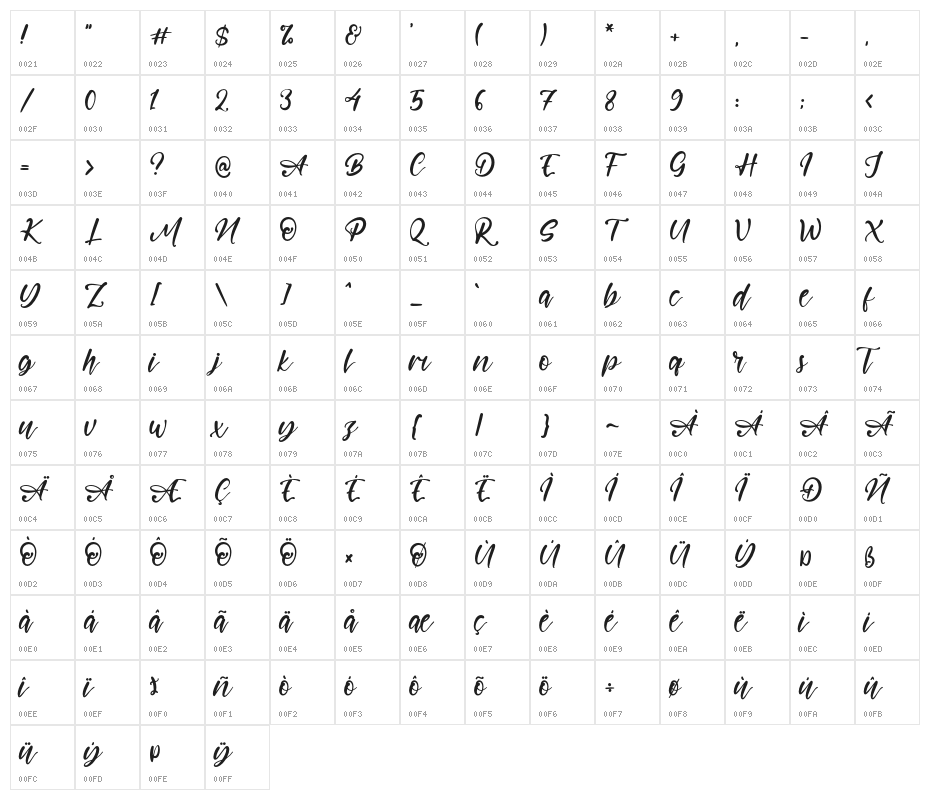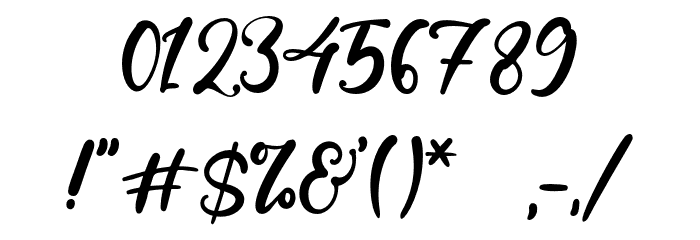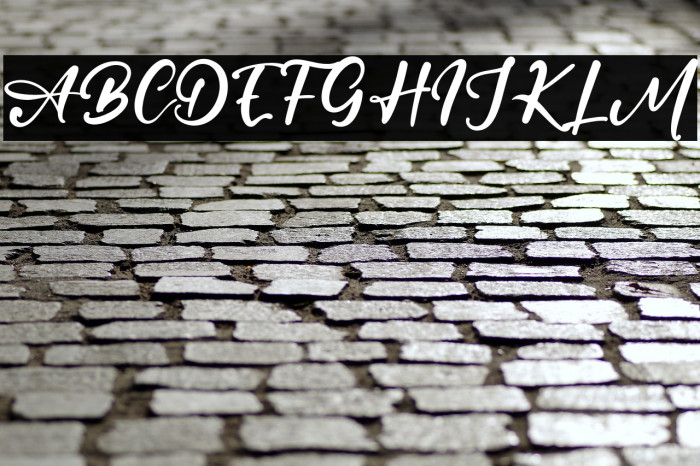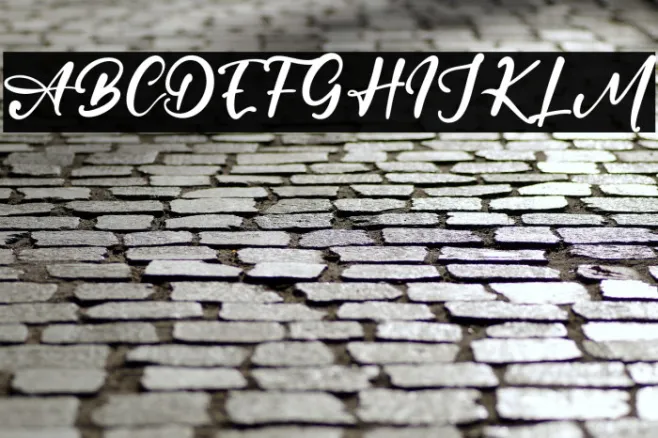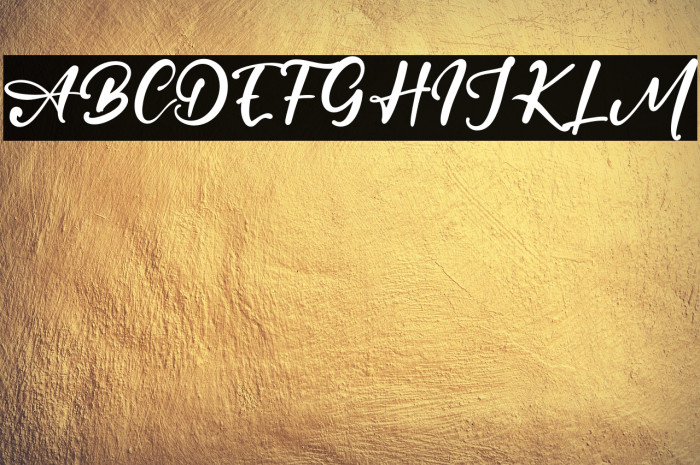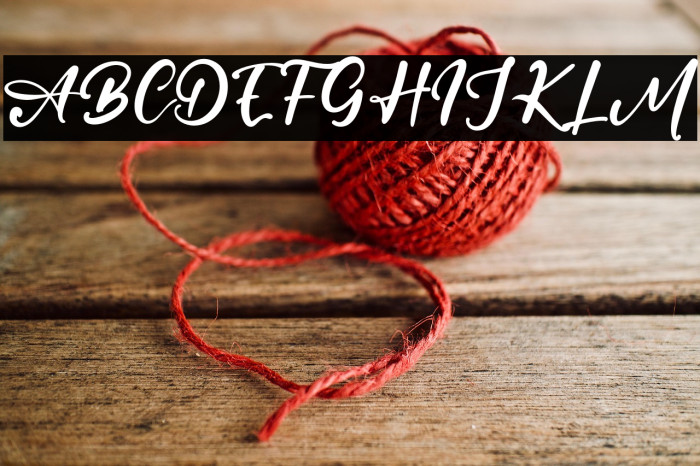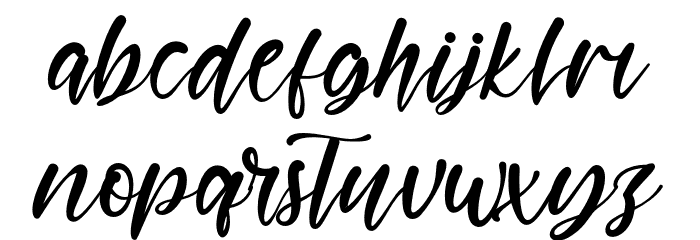
AustinaAlma Font
AustinaAlma Description
This font features a flowing, cursive style with elegant, sweeping strokes that convey a sense of sophistication and grace. The uppercase letters are bold and prominent, with distinctive flourishes that add a decorative touch. The lowercase letters maintain a consistent flow, enhancing readability while retaining an artistic flair. Numbers and special characters are designed to match the overall aesthetic, ensuring a cohesive look across all text elements. The font's design is both modern and timeless, making it suitable for a variety of creative applications.